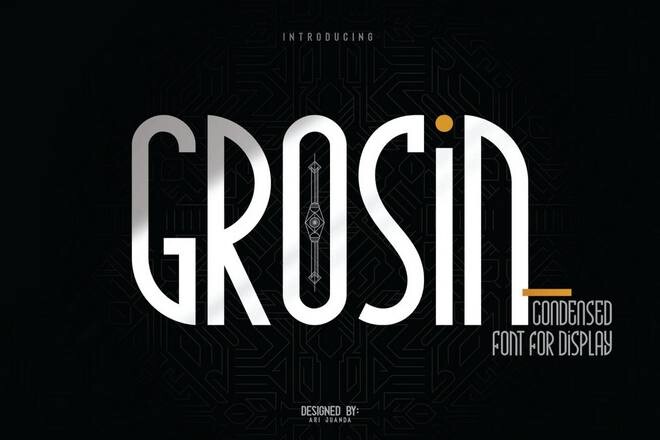
Old-fashioned fonts are all about capturing the elegance and character of typography from past eras. These fonts are often inspired by historical type styles, especially old-style serif fonts that date back to the Renaissance. Many old-fashioned fonts also fall under the broader category o…